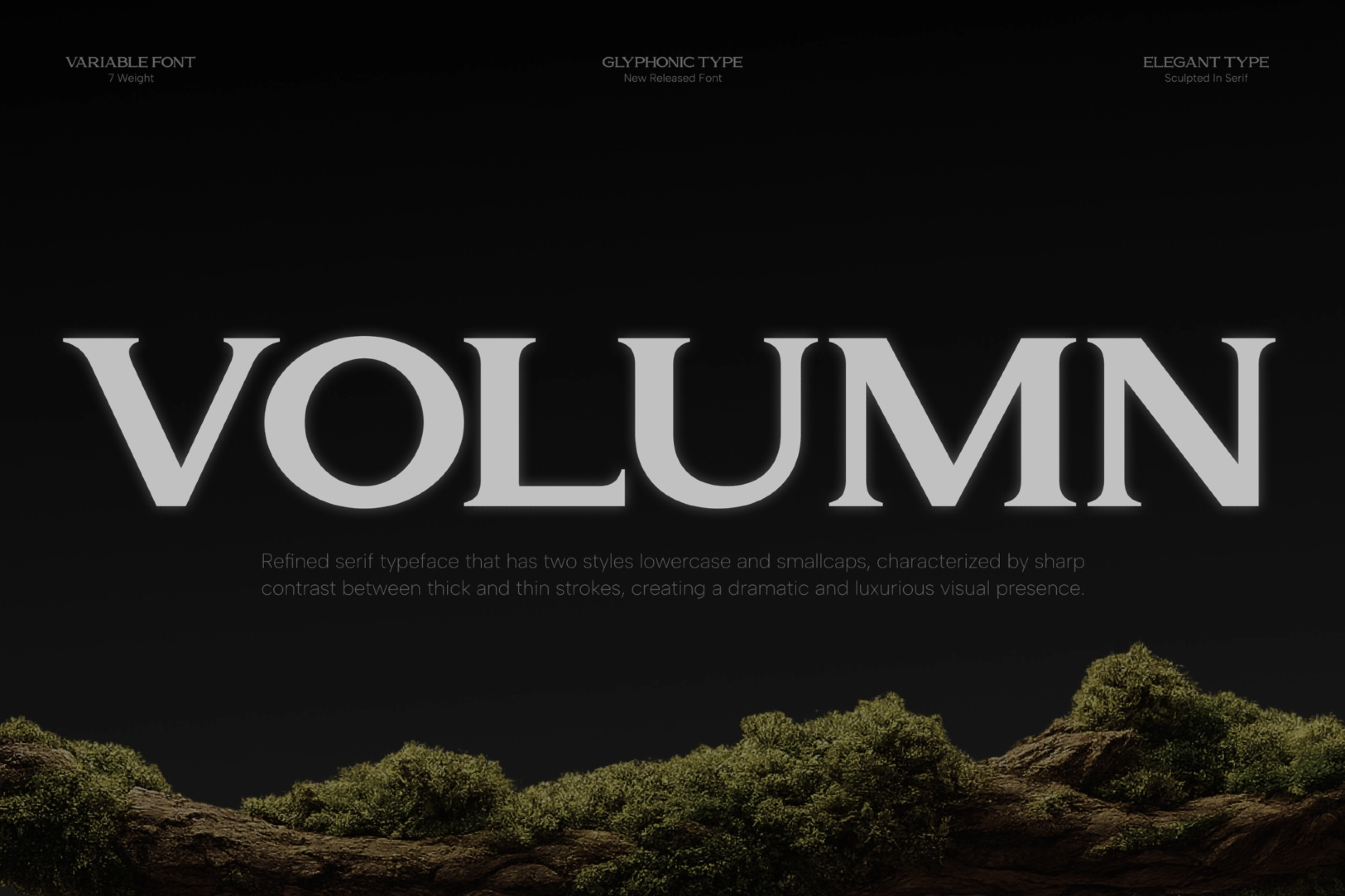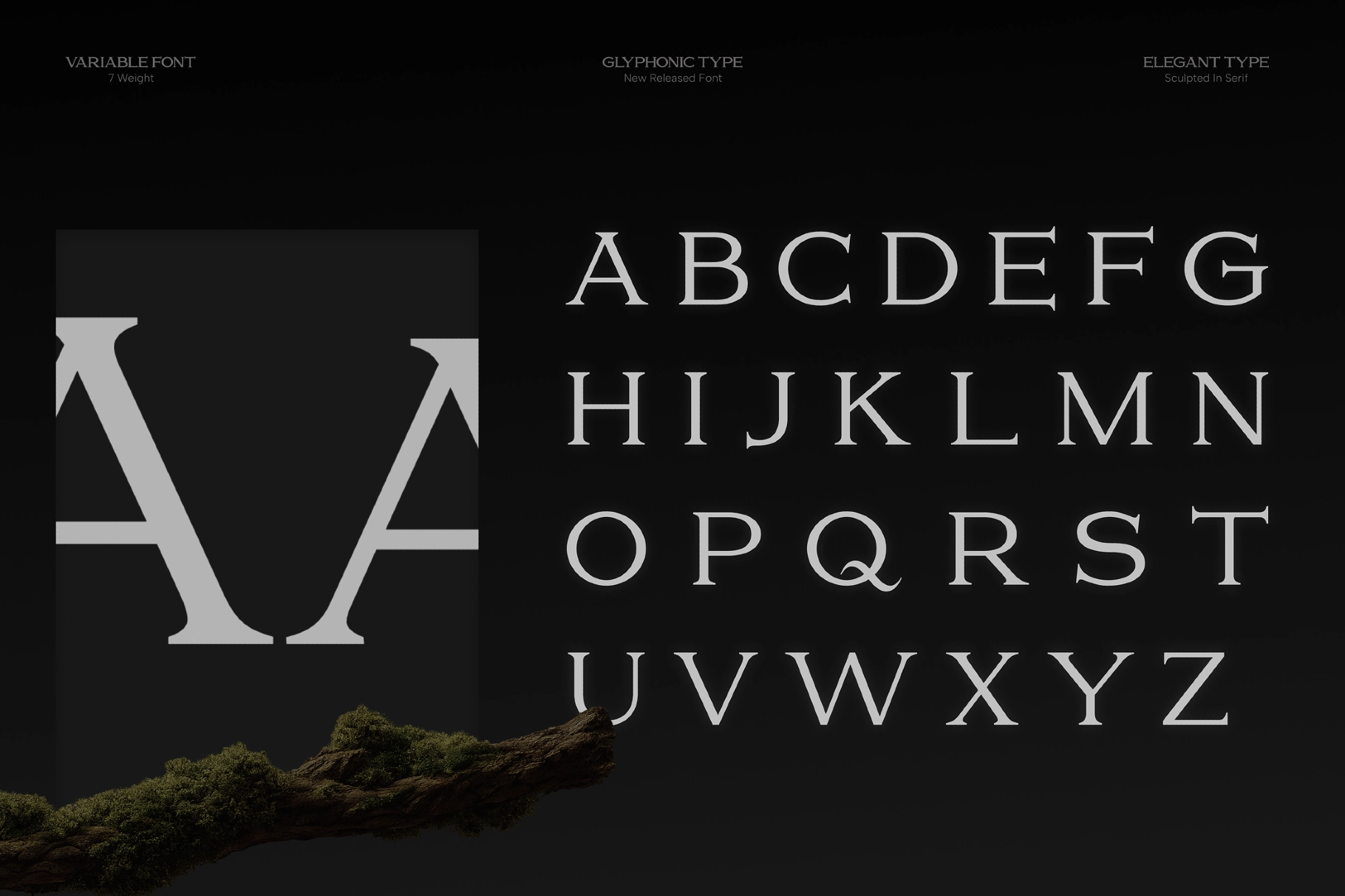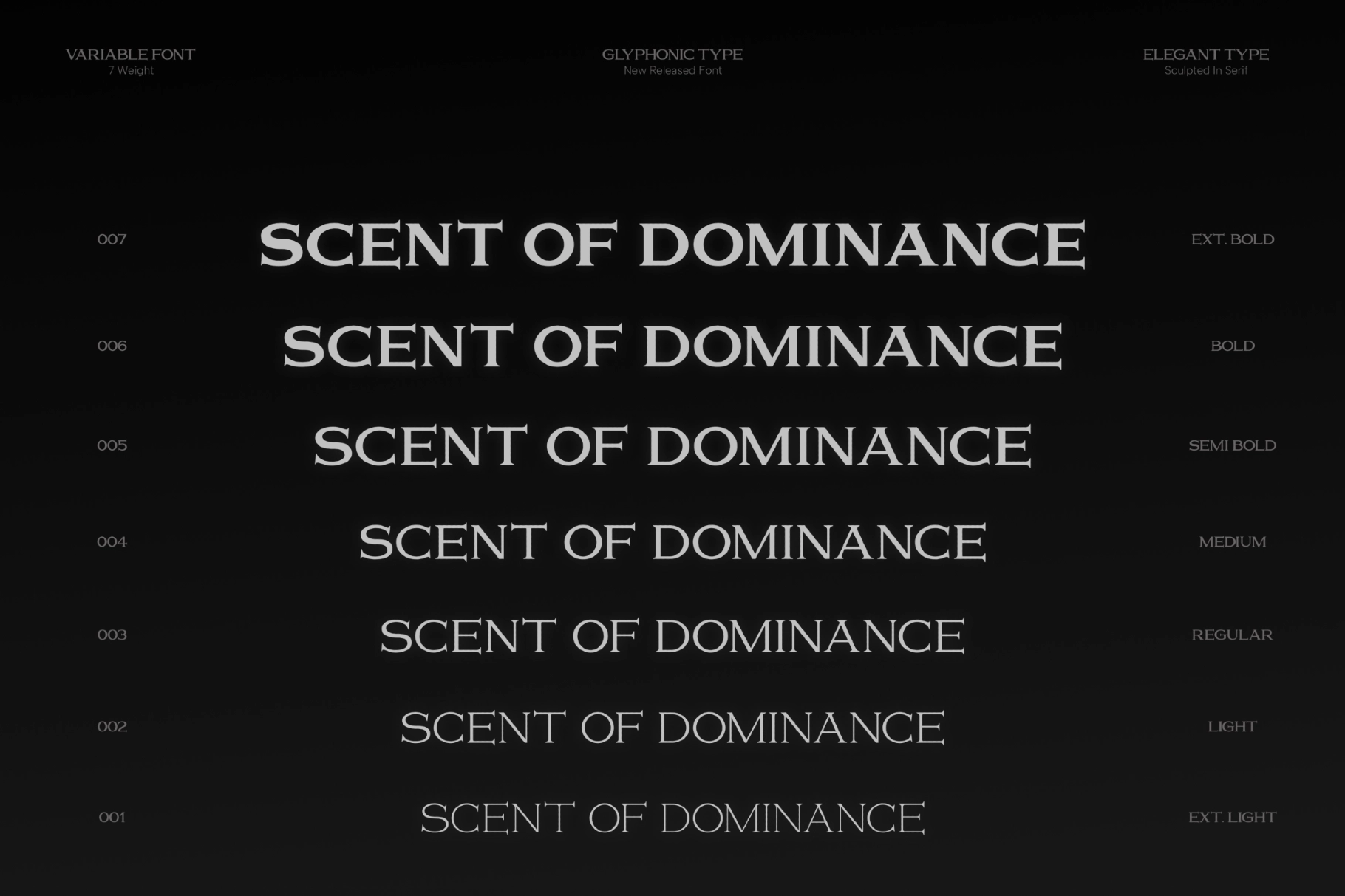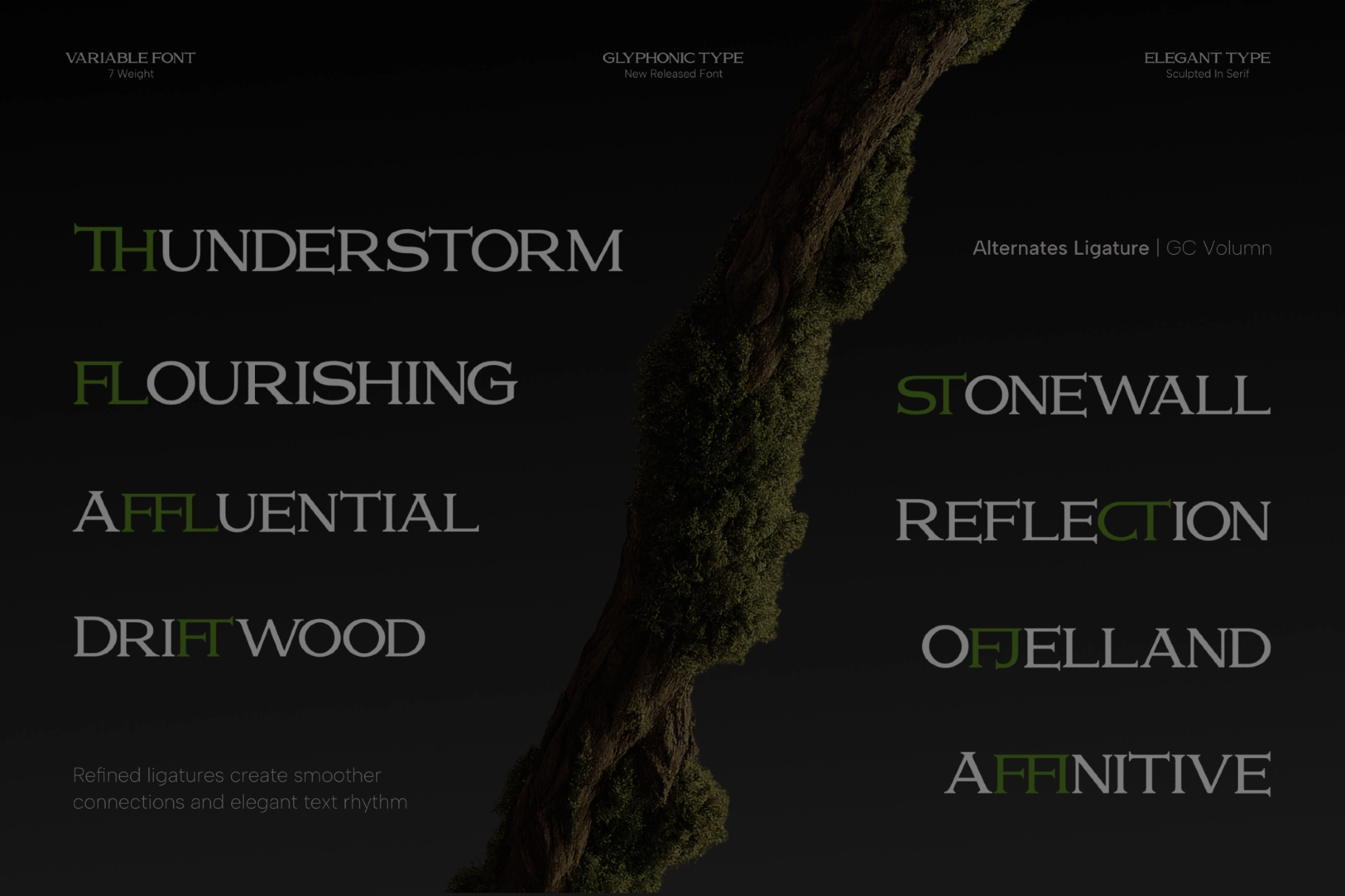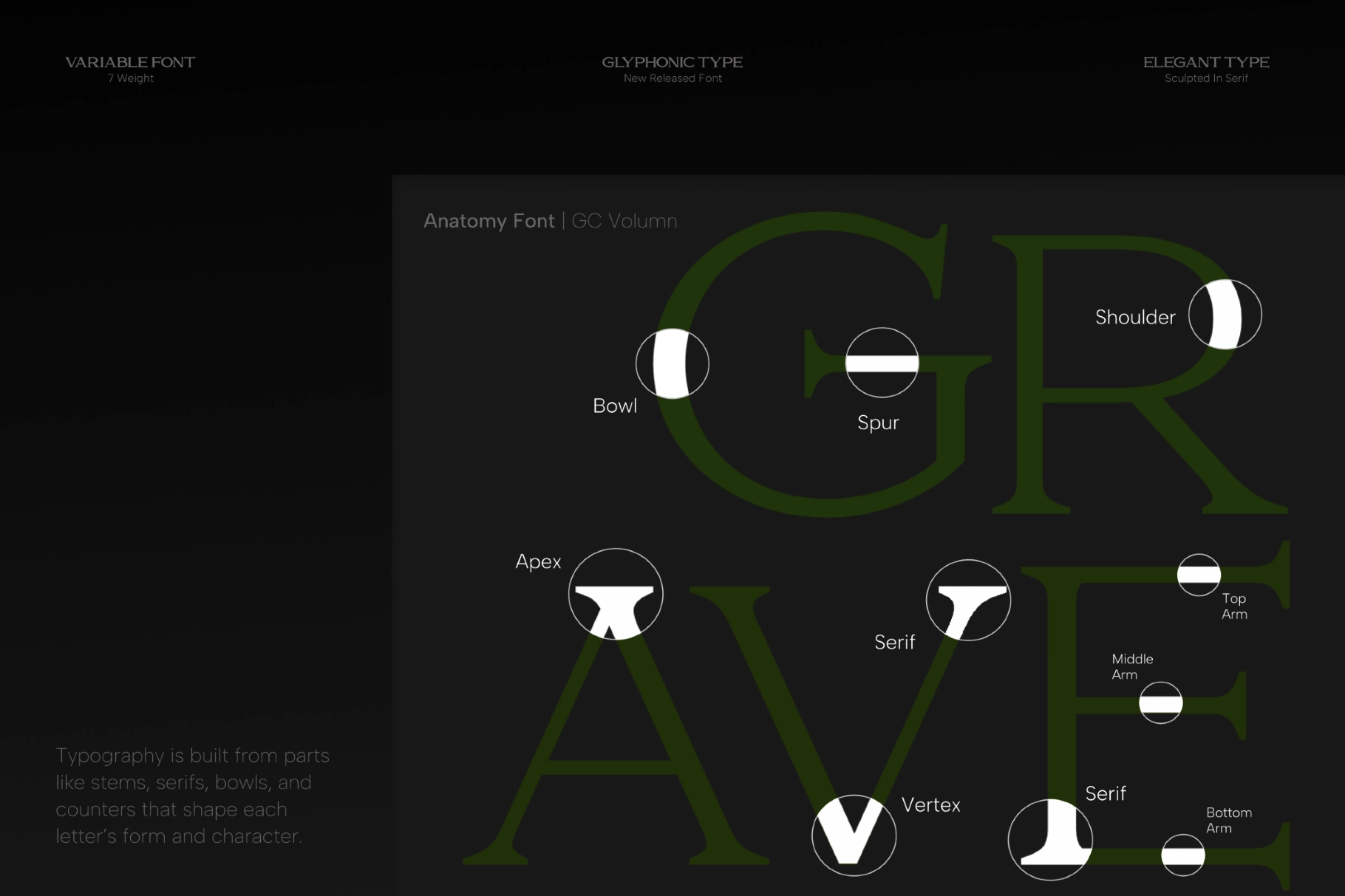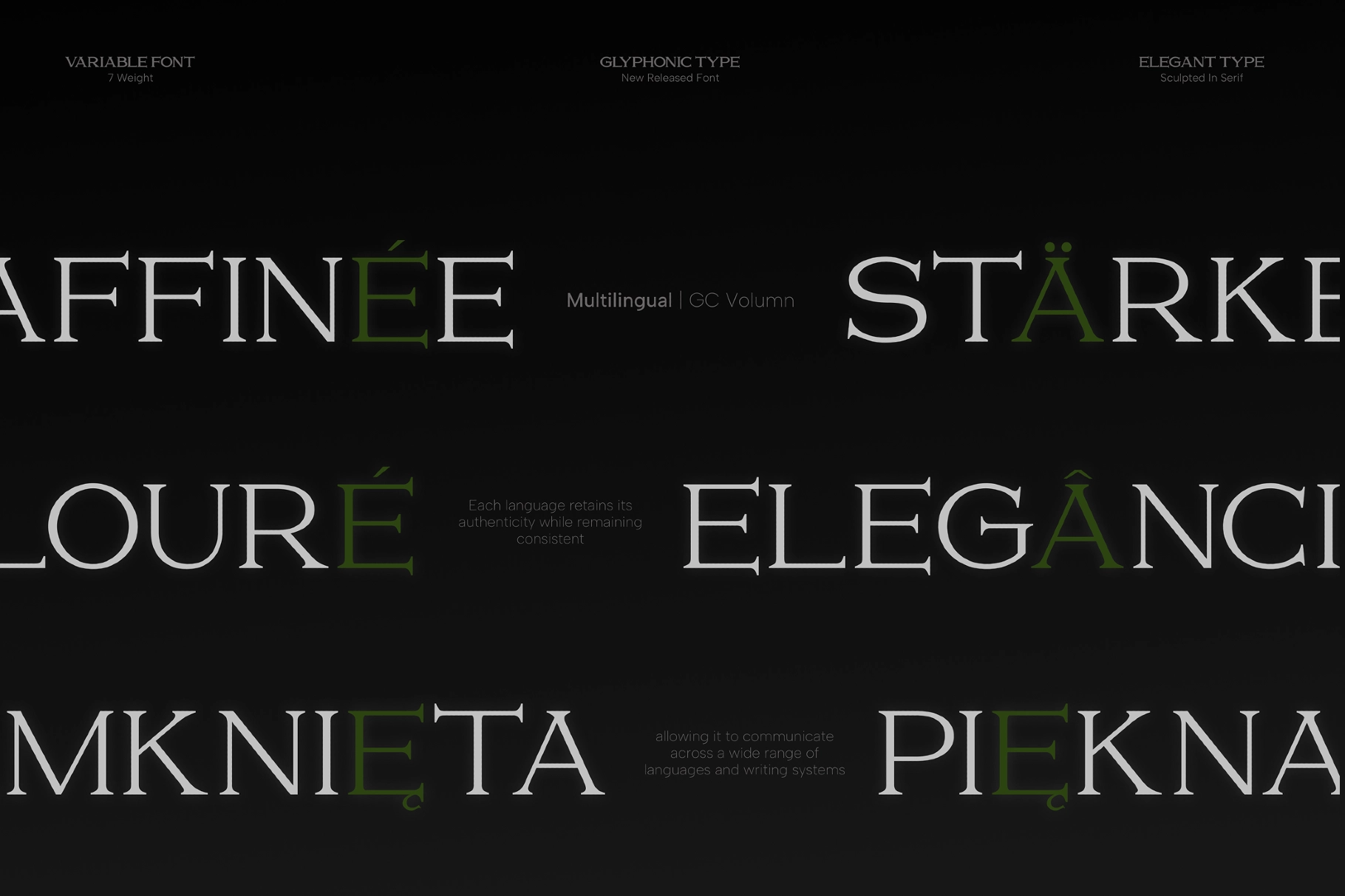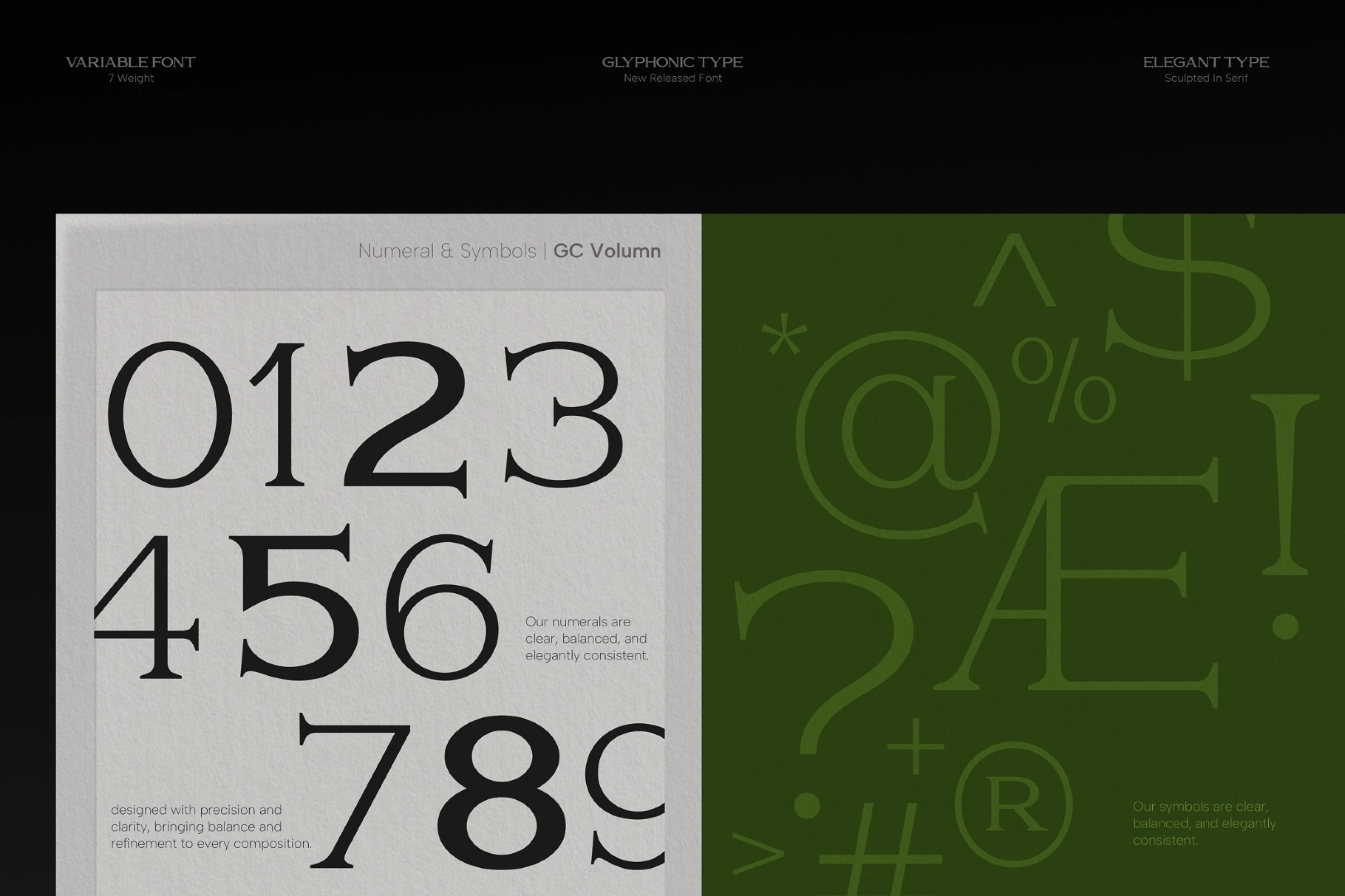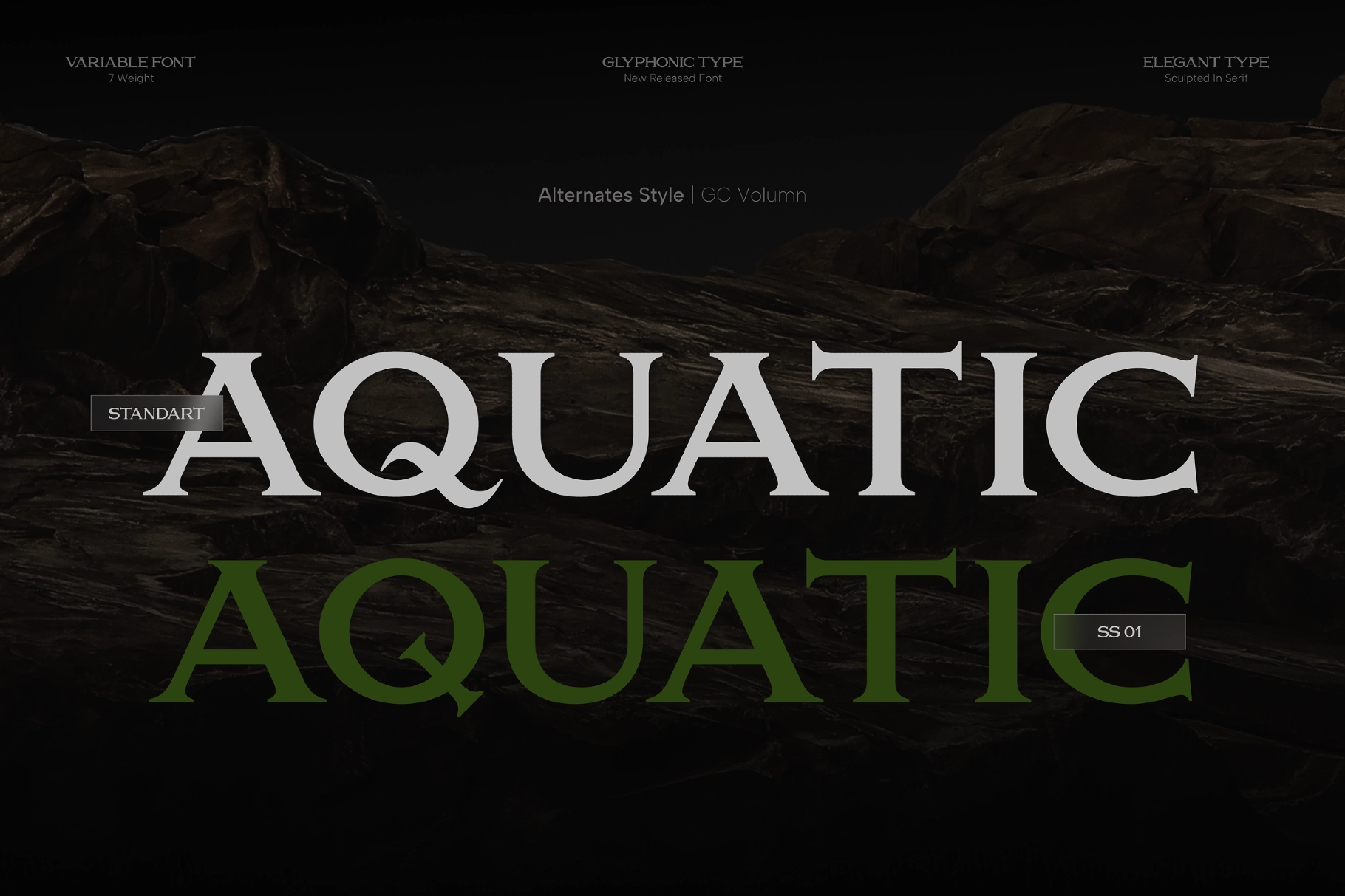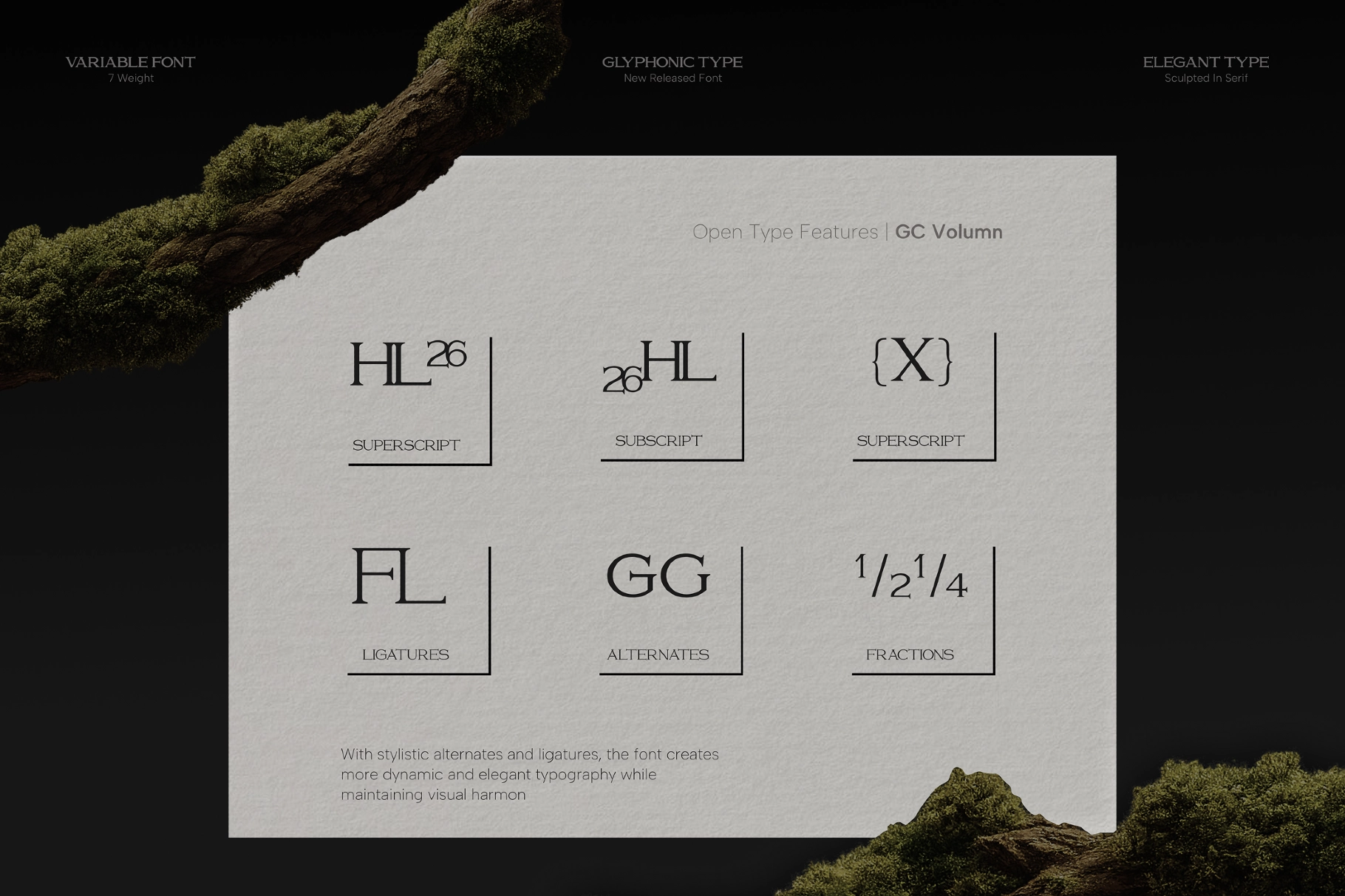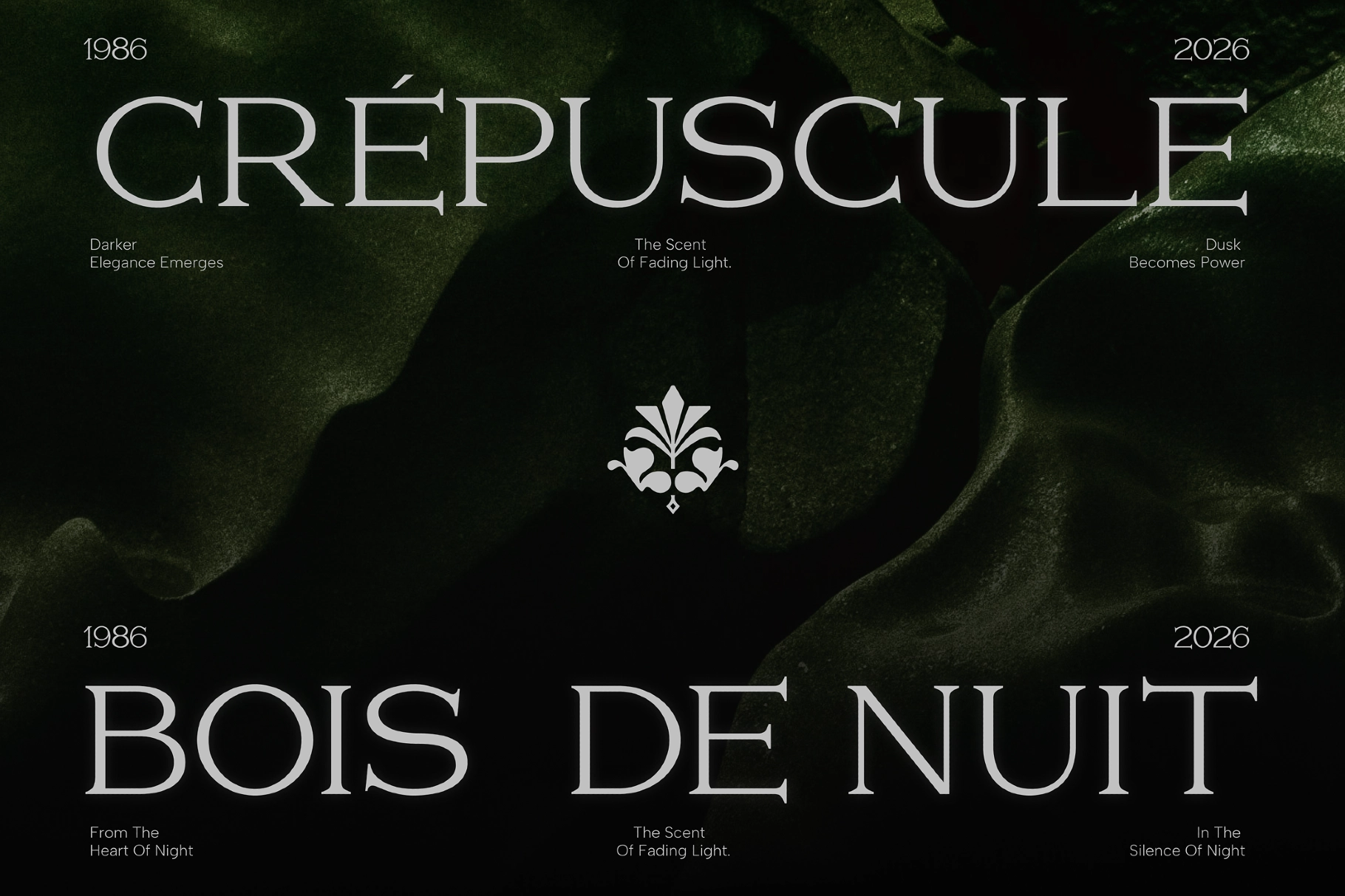
GC Volumn - Elegant Serif Font
This elegant serif font is sculpted, high-contrast, and cinematic in tone. Sharp serifs, broad capitals, and fine internal curves give it a luxurious editorial presence, with seven weights for building clear typographic hierarchy.
GC Volumn works for fashion campaigns, perfume branding, luxury packaging, magazine covers, cinematic posters, boutique identities, beauty labels, book titles, gallery catalogs, premium logos, website headers, and art direction systems. Alternate lowercase forms, small caps, ligatures, fractions, superscript, and subscript options add polish for detailed typography without turning every layout into a marble lobby.
- 7 Weight: Extra Light- Extra Bold
- Alternate Lowercase & Smallcaps
- Ligatures & Alternates
- Fractions, Superscript & Subscript
- Multilingual Support for 170+ Languages